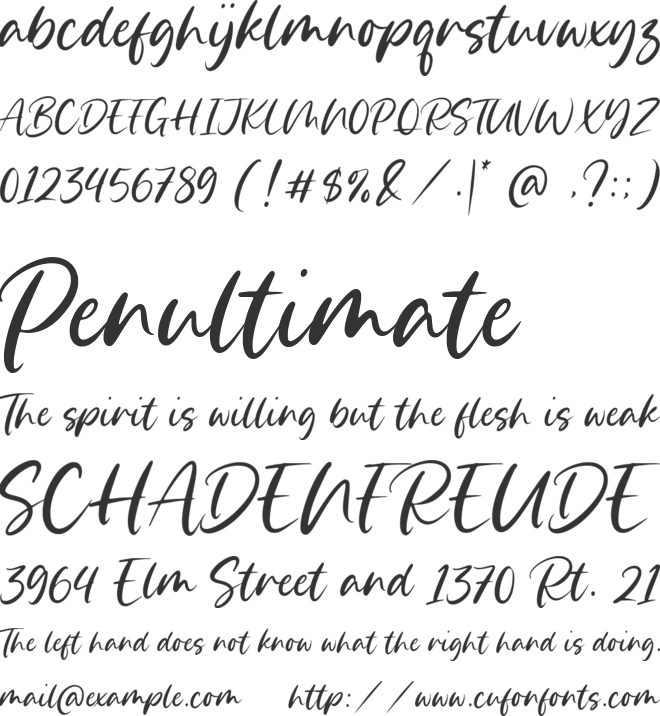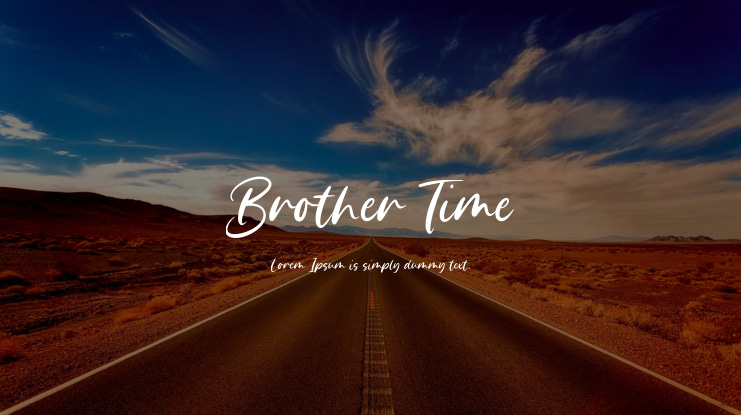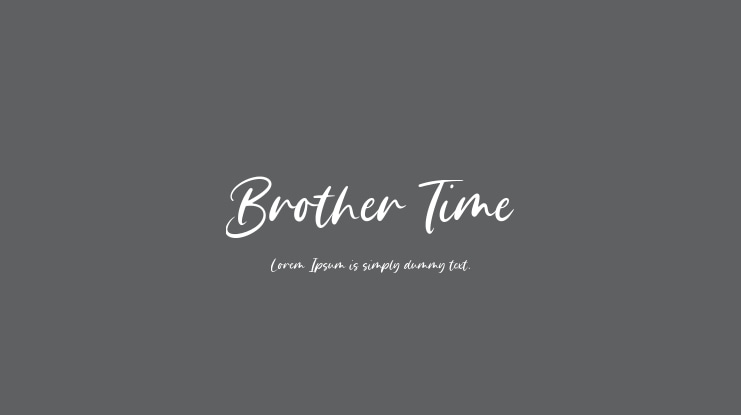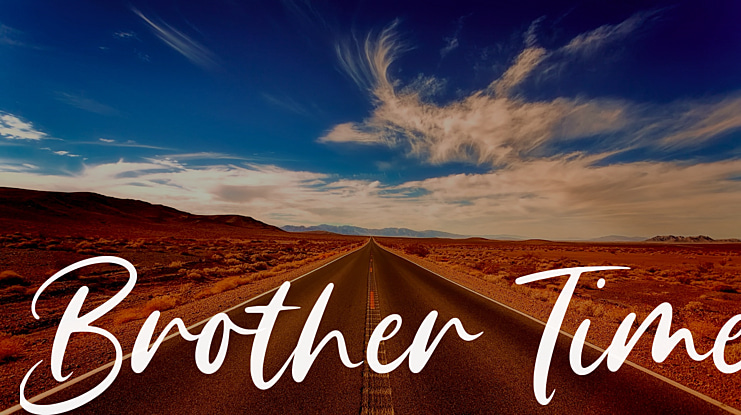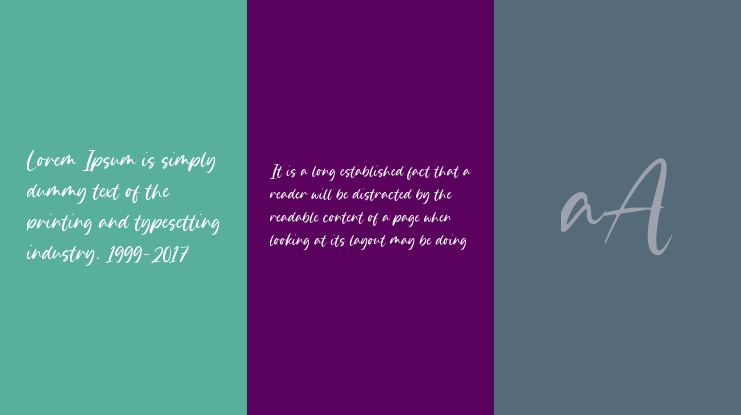
Brother Time Font
Introduced by Timur type
Proudly Present Brother Time
Brother Time is a Handwritten script font that is modern and fresh, and will bring a warm and inviting feel to your business. Take advantage of the fonts and experience the magic for yourself.
Brother Time is perfect for product packaging, branding project, megeenazine, social media, wedding, or just used to express words above the background.
Brother Time Font Features premium :
-Full Set of standard alphabet and punctuation
– Brother Time also multilingual support.
– extra set ligature
Brother Time font preview